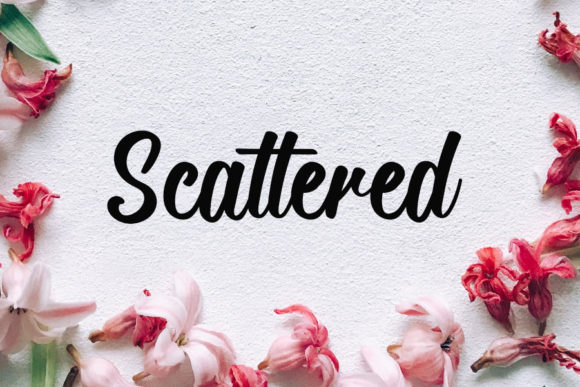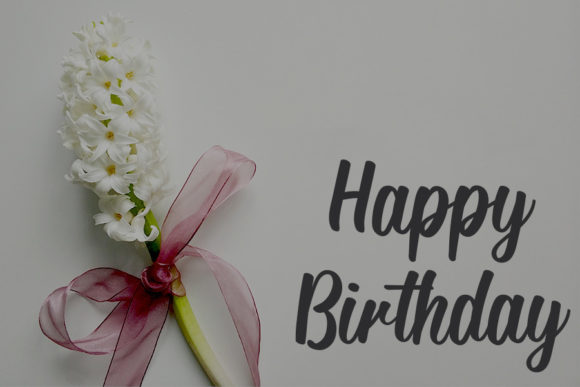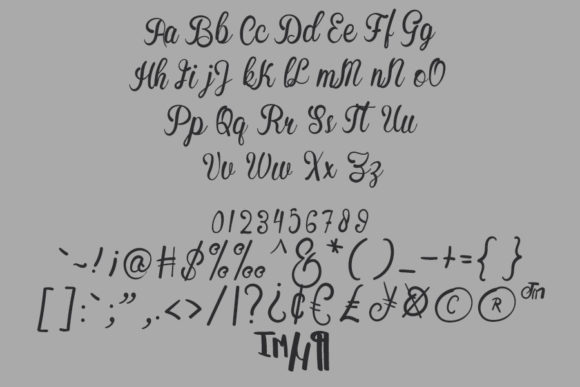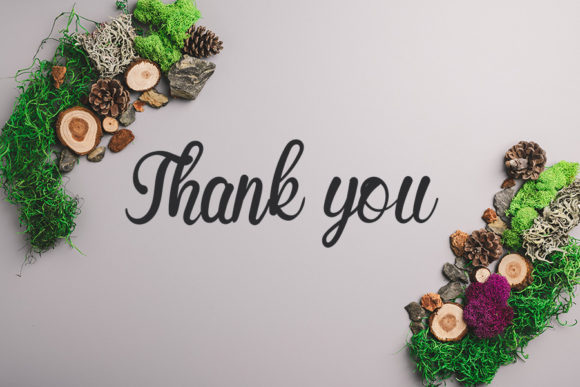
The Quest for the Perfect Font: How Daylight Stole My Heart
I’ll never forget the frustration of working on a project, hours pouring into designing what I thought was going to be a beautiful piece, only to realize that the font I’d chosen was completely off. It was a client request for a friendly, approachable vibe, but the font I’d selected was anything but. That’s when I stumbled upon Daylight, a friendly handwritten font that was carefully designed to become a true favorite. It maintains its classy calligraphic influences while feeling contemporary and fresh.
An Honest Review of Daylight Font
What I Love About Daylight ✨
- ✅ The friendly and approachable vibe it gives off, perfect for designs that need a personal touch
- ✅ The classy calligraphic influences that add a touch of elegance to any design
- ✅ The contemporary and fresh feel that makes it perfect for modern designs
- ✅ The wide range of OpenType features, glyphs, and stylistic alternates that allow for endless creativity
- ⚠️ Some users may find the font a bit too casual for very formal designs
- ⚠️ The font may not be suitable for very small text sizes due to its handwritten nature
A Practical Guide to Using Daylight Font
The Story Behind Daylight
Daylight was designed with the intention of creating a friendly, approachable font that would be perfect for a wide range of designs. The designer wanted to create a font that would feel both classy and contemporary, with a touch of elegance and sophistication. The result is a font that is both versatile and beautiful, perfect for designs that need a personal touch.
Q: What is Daylight font?
A: Daylight is a friendly handwritten font, carefully designed to become a true favorite. It maintains its classy calligraphic influences while feeling contemporary and fresh.
Q: What type of designs is Daylight best suited for?
A: Daylight is perfect for designs that need a friendly, approachable vibe, such as branding, packaging, and marketing materials.
Q: Is Daylight a difficult font to use?
A: No, Daylight is a relatively easy font to use, and its OpenType features, glyphs, and stylistic alternates make it easy to customize and experiment with.